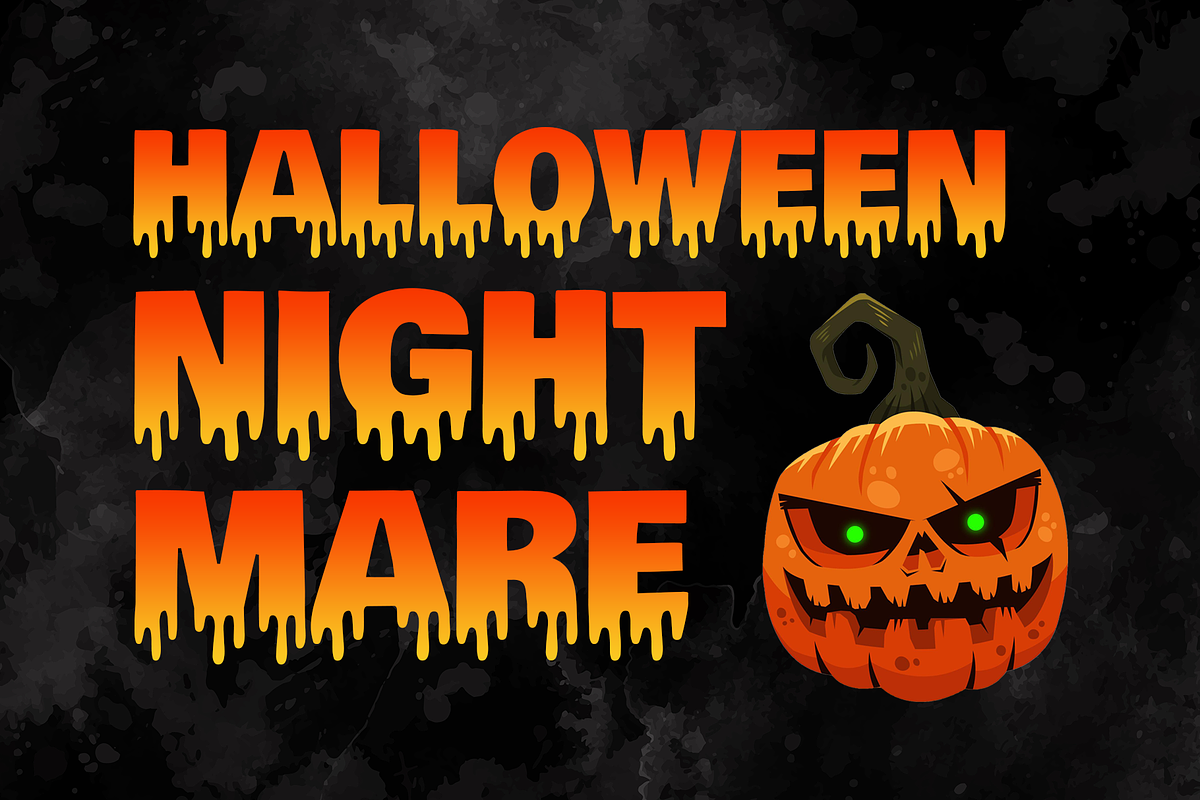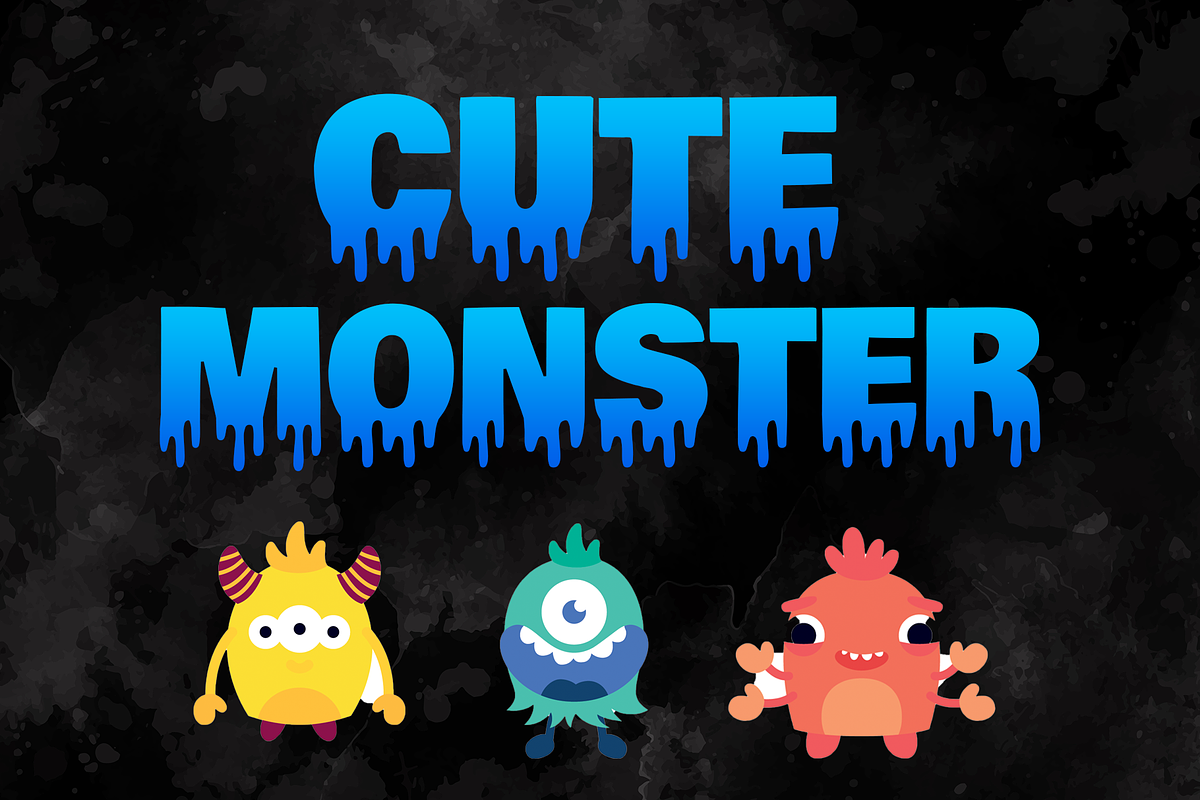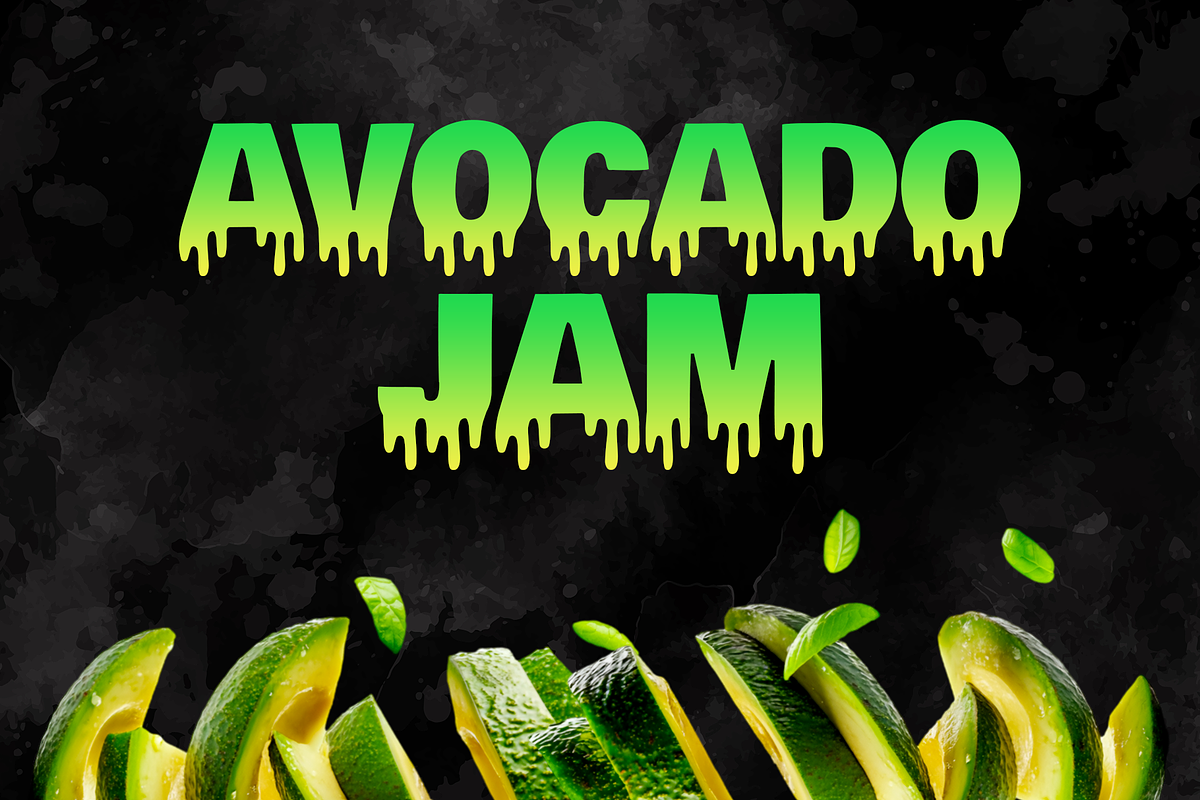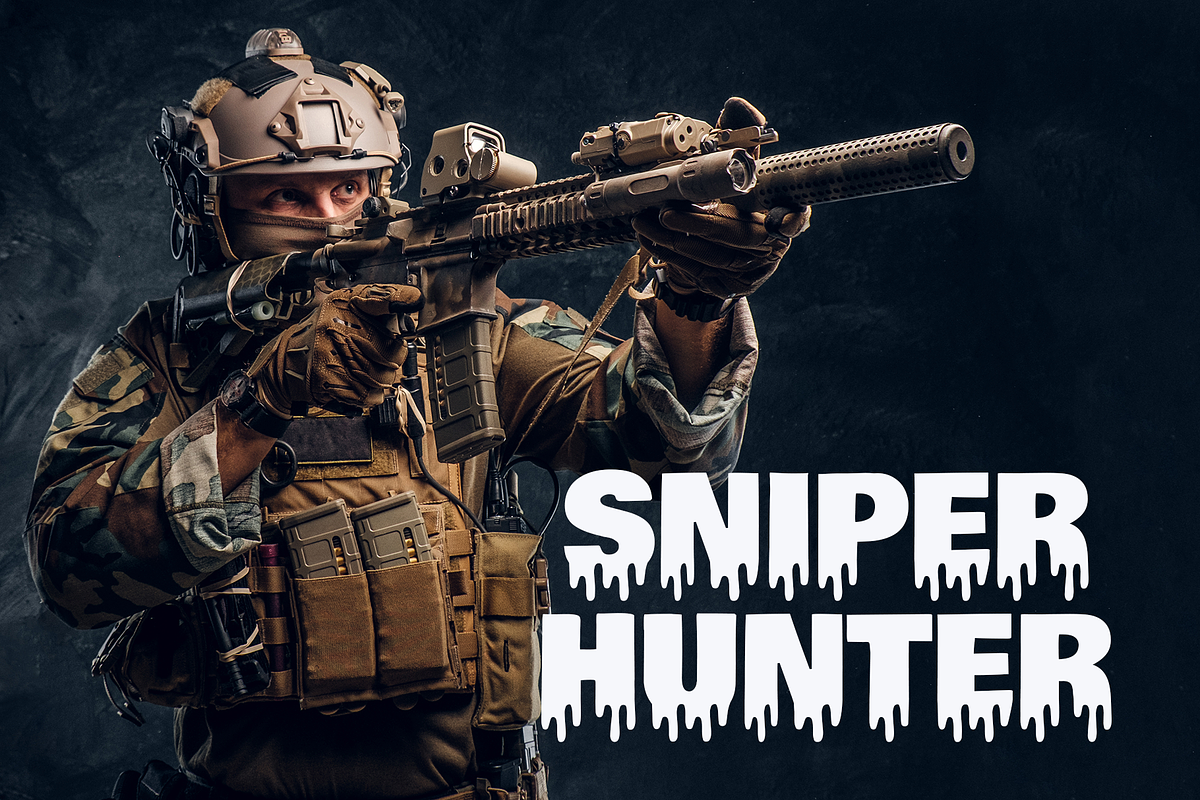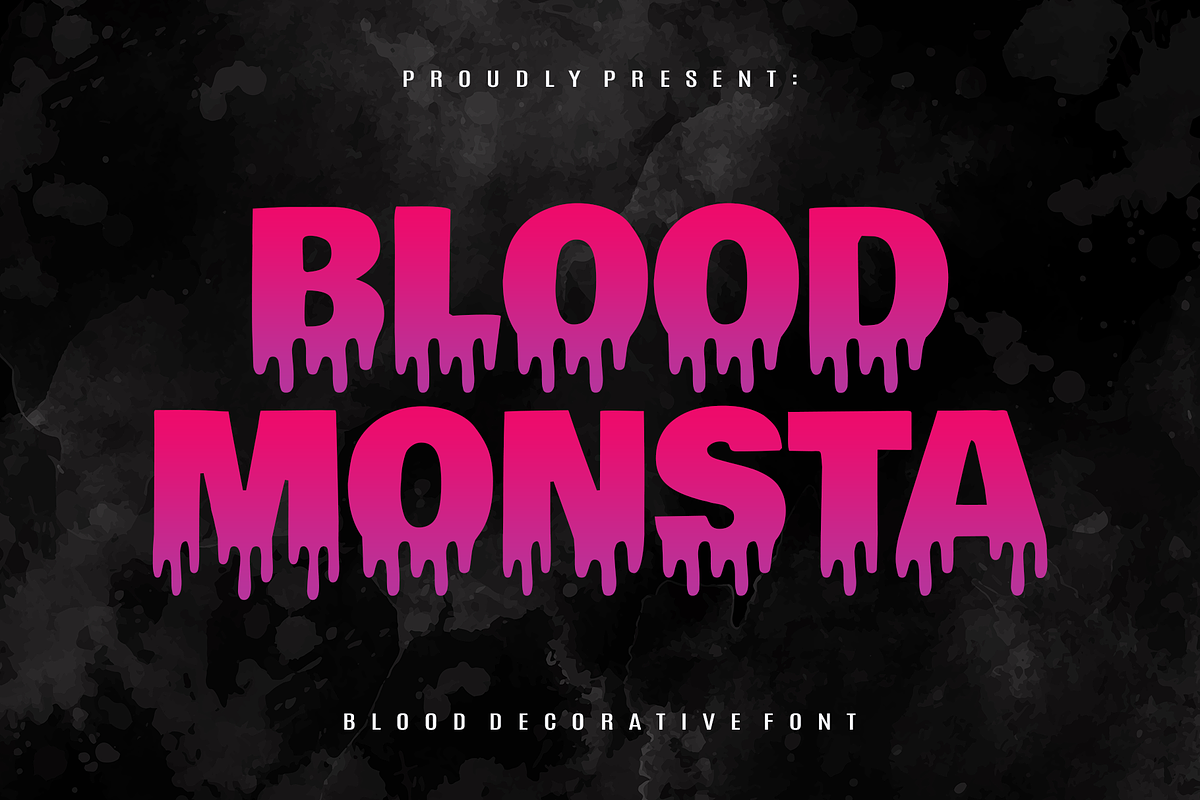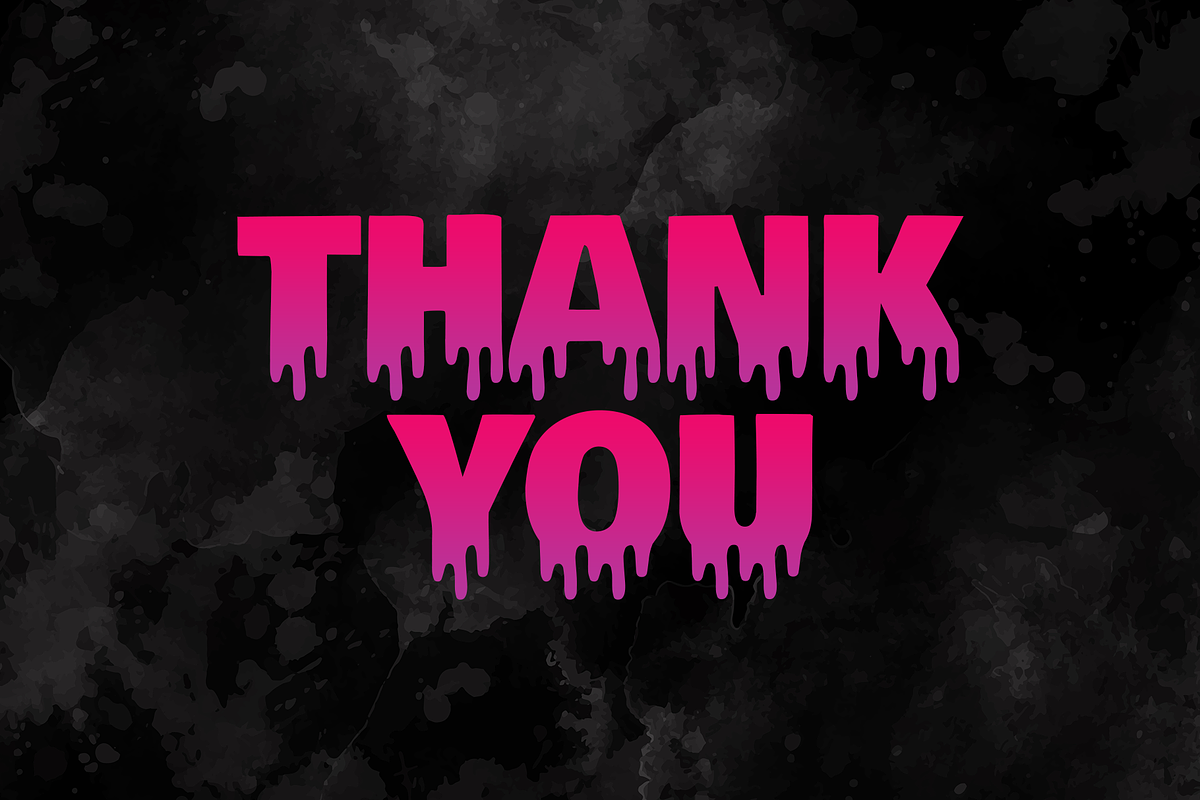
Blood Monsta
Blood Monsta is a bold font with a flowing, melting sensation like blood and similar liquids that gives a strong impression to any theme, such as Halloween, food, drinks, games, posters, t-shirts, cartoons and many more!